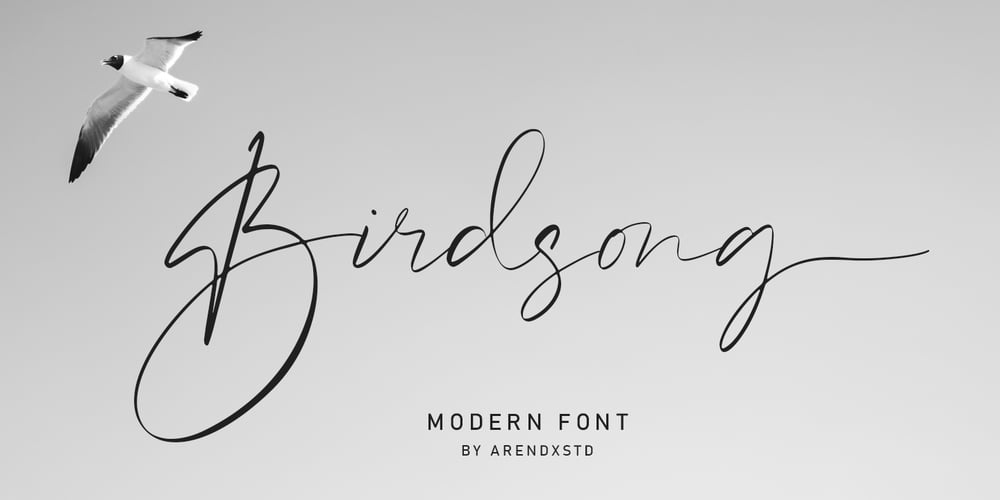
Birdsong Font Family was designed by Asep Rendi and published by Arendxstudio. Birdsong contains 3 styles and family package options. Introducing my latest font Birdsong, a handwritten font which is very elegant and modern. Ideal for logos, branding names, posters, podcasts and so on. This is perfect for you all. Features uppercase and lowercase, numbers and punctuation, ligatures and swashes. Birdsong is multi-lingual. There it is! I really hope you enjoy it. Comments and likes are always welcome and accepted. More importantly, don’t hesitate to send a message if you have a problem or question. Now just read this, go there and make it happen.